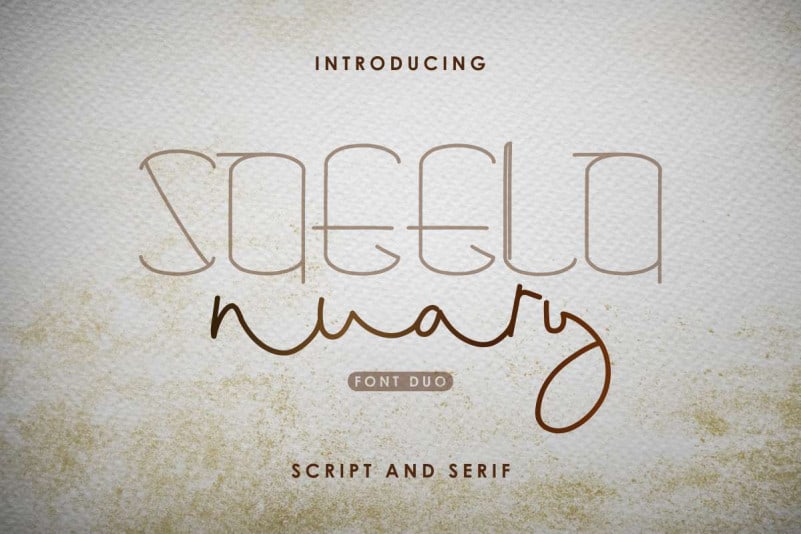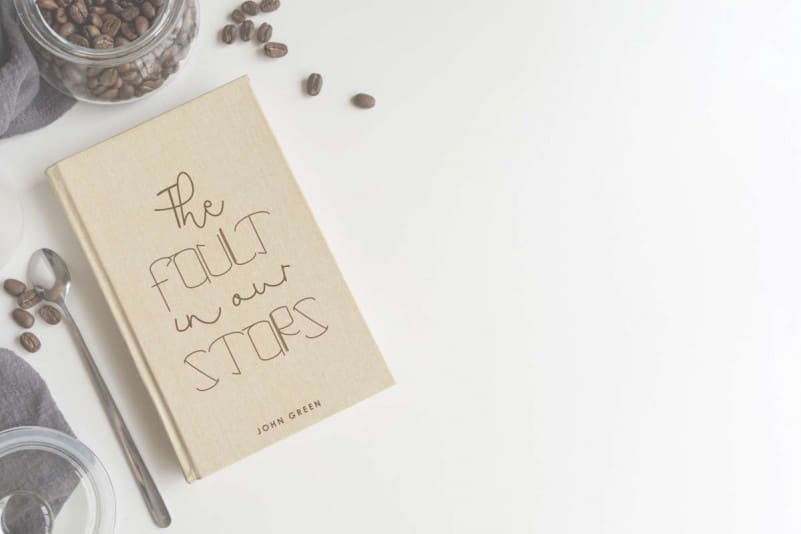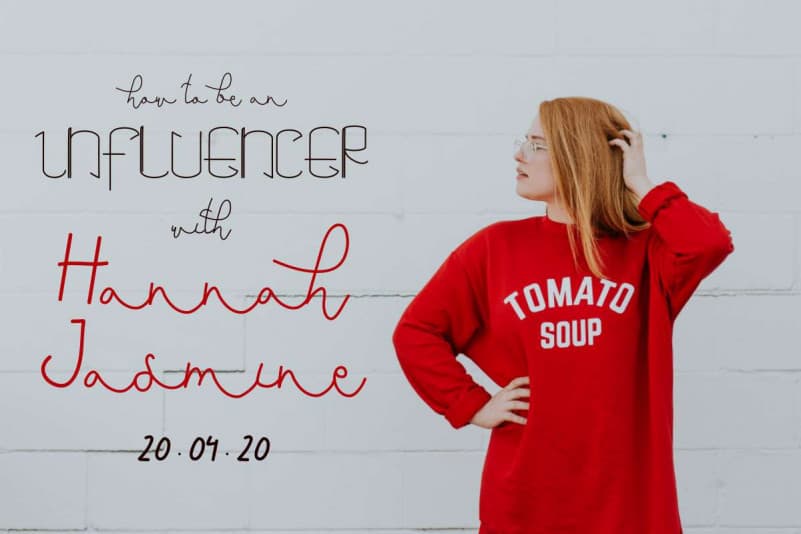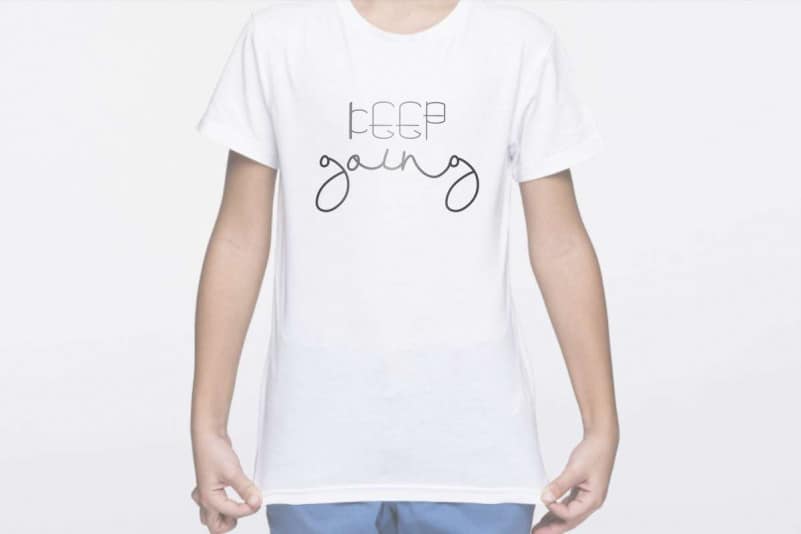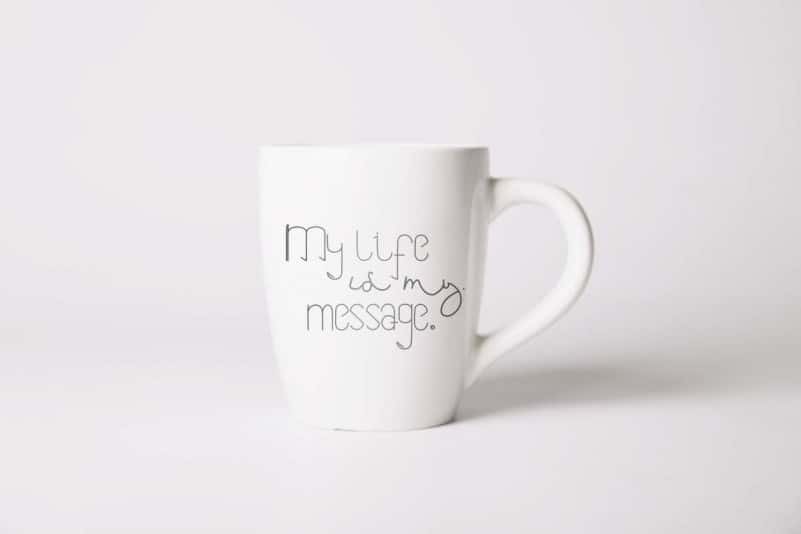
Saeela Nuary Font Duo
Saeela Nuary Font Duo has a unique glyphs set so you can explore your creativity further more. This font will suits many projects categories : Logo type, flyer, stationery, business card, signage, flyer, brochure etc.  With your creativity, there’s no limit using with this font.